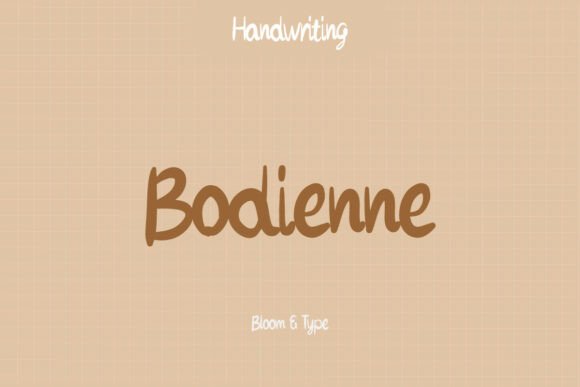
The Bodienne Font: A Charming Handwritten Style for Creative Projects
I’ll never forget the design project that led me to discover the Bodienne font. I was working on a branding project for a new coffee shop, and I needed a font that would convey a warm and inviting atmosphere. After hours of searching through font libraries, I stumbled upon Bodienne, and it was love at first sight! ✨ The soft curves, playful flow, and friendly feel of this handwritten font immediately resonated with my design vision.
As I’ve continued to work with Bodienne, I’ve fallen more and more in love with its unique charm. Here are a few things that make it stand out:
- ✅ Smooth handwritten style: Bodienne’s rounded letterforms and smooth strokes create a friendly and approachable feel that’s perfect for designs that want to look warm and modern.
- ✅ Multilingual support: This font is a versatile choice for designers around the world, with support for multiple languages.
- ✅ Uppercase & lowercase letters: The font includes both uppercase and lowercase letters, making it perfect for a wide range of design projects.
- ✅ Numbers & punctuation: Bodienne also includes numbers and punctuation, giving you everything you need to create beautiful designs.
- ⚠️ Limited formal settings: While Bodienne is perfect for creative projects, it may not be the best choice for more formal designs, such as corporate reports or academic papers.
- ⚠️ Some letter combinations: As with any handwritten font, some letter combinations may not flow as smoothly as others.
- 🤔 OpenType features: While Bodienne supports OpenType features, some users may find the glyphs and stylistic alternates a bit tricky to navigate.
The Story Behind Bodienne
Bodienne was designed with the goal of creating a font that would bring a personal touch to creative projects. The designer wanted to capture the warmth and expressiveness of everyday handwriting, while still maintaining clarity and readability. The result is a font that’s both trendy and timeless – perfect for designers around the world.
Perfect for Creative Projects
Bodienne is ideal for a wide range of creative projects, including:
- Branding & Logo Design: Use Bodienne to create a warm and inviting brand identity.
- Social Media Graphics: Add a personal touch to your social media graphics with Bodienne’s friendly, handwritten style.
- Greeting Cards: Bodienne is perfect for creating beautiful, heartfelt greeting cards.
- Invitations: Use Bodienne to create stylish and elegant invitations for any occasion.
- Product Packaging: Add a touch of whimsy to your product packaging with Bodienne’s playful, handwritten style.